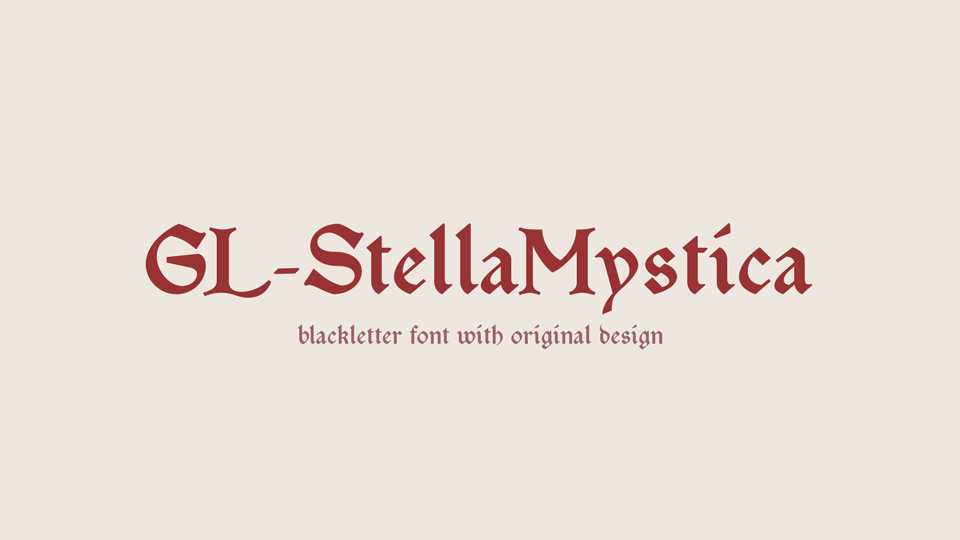
Download GL-StellaMystica font, a blackletter typeface with original design. Created with the design of the Arts and Crafts Movement of the late 19th century in mind.
Designer: Gutenberg Labo